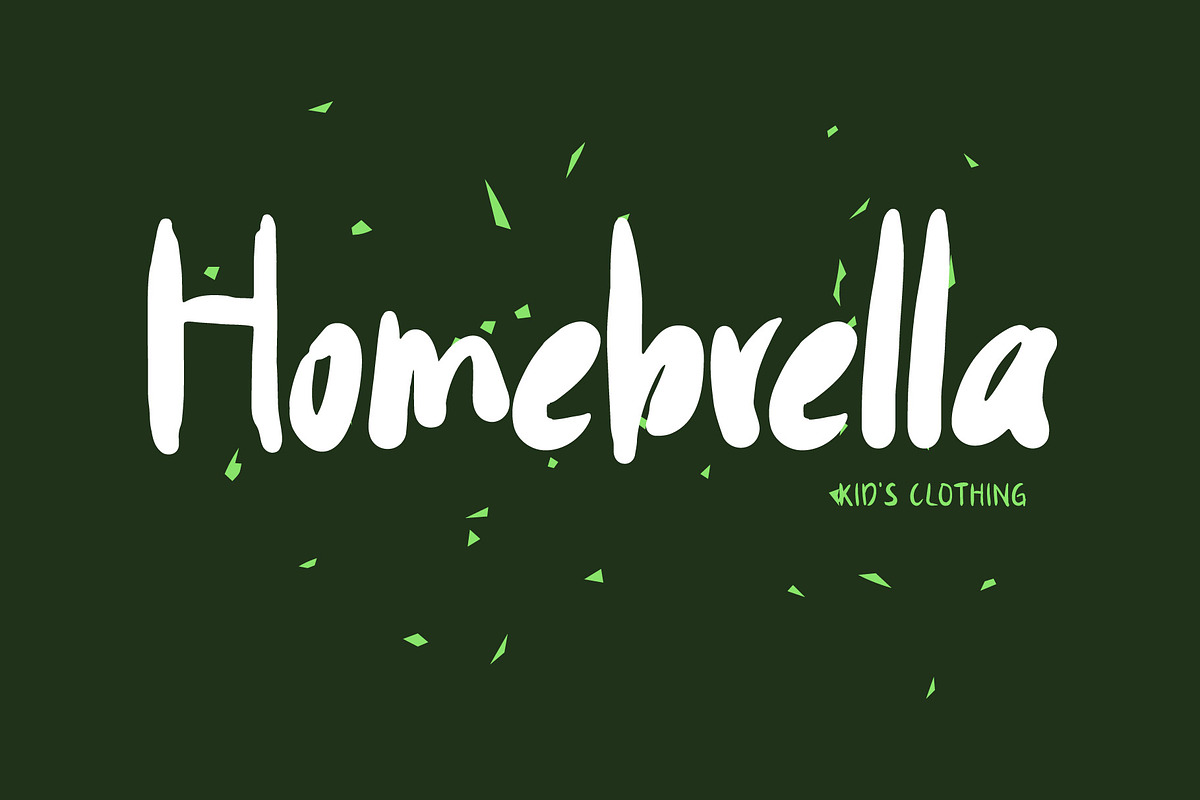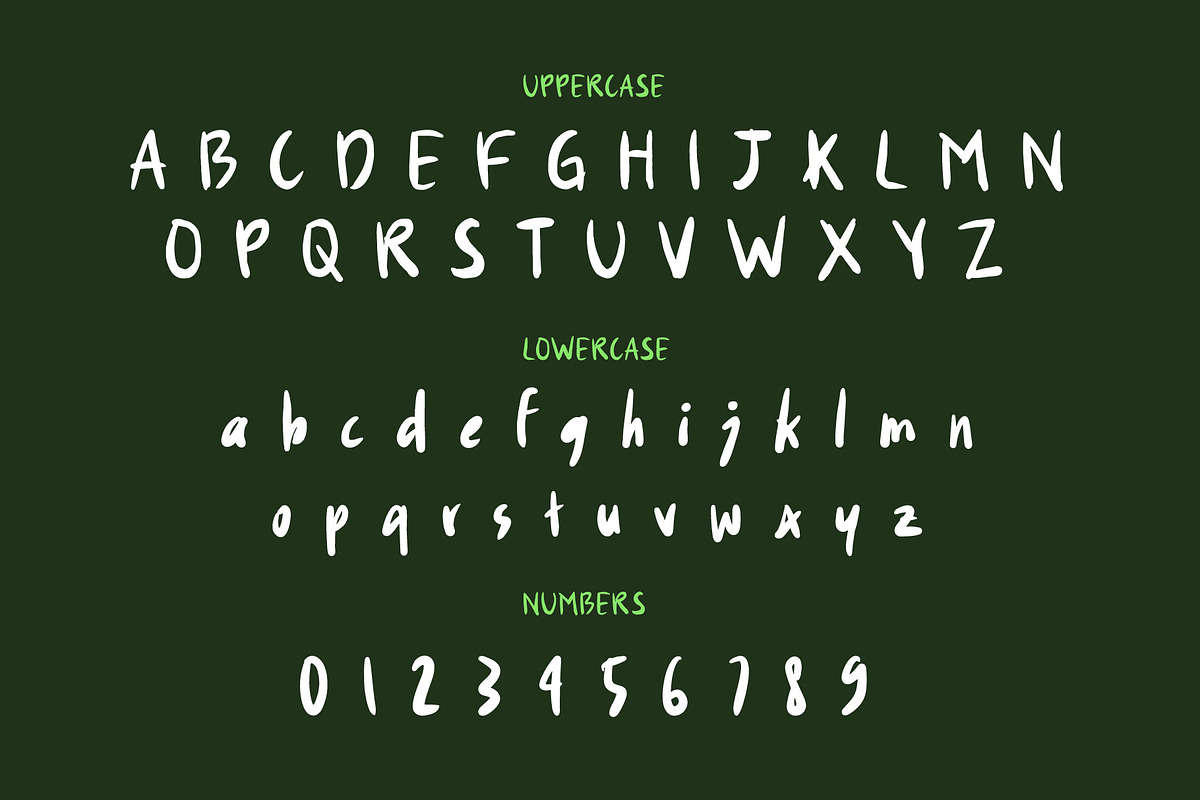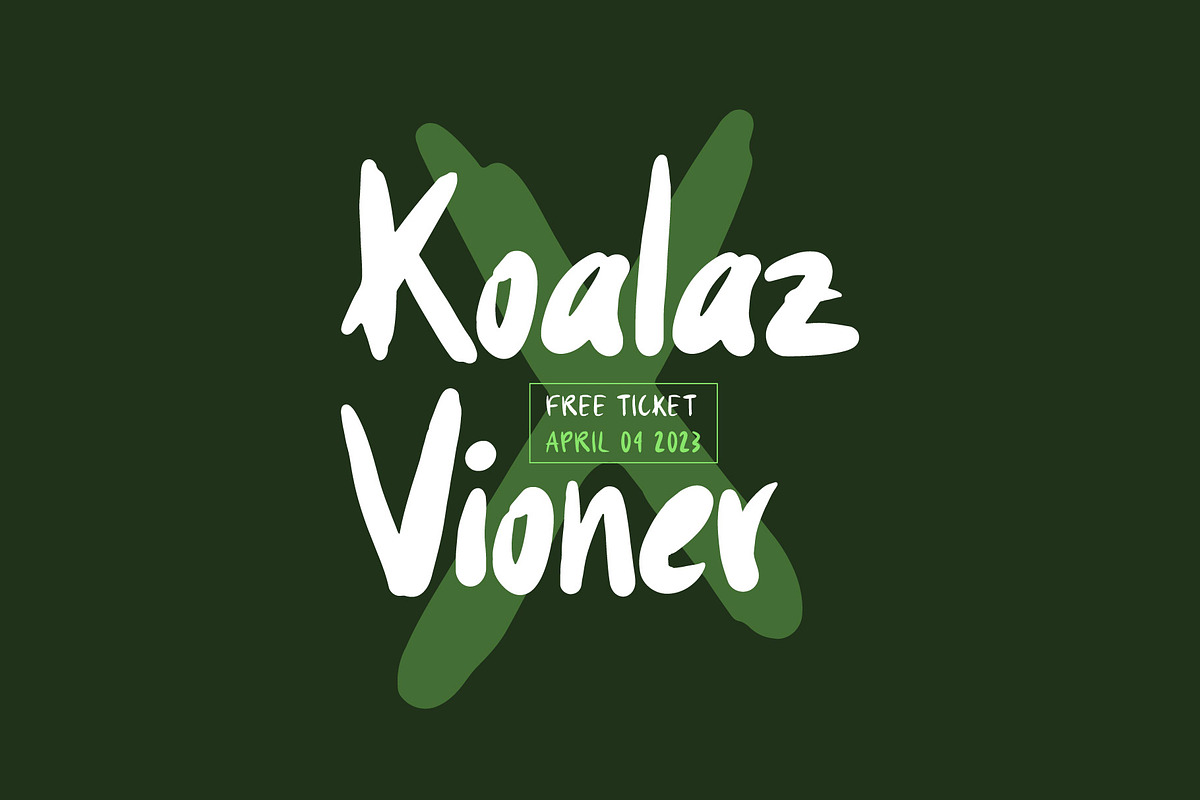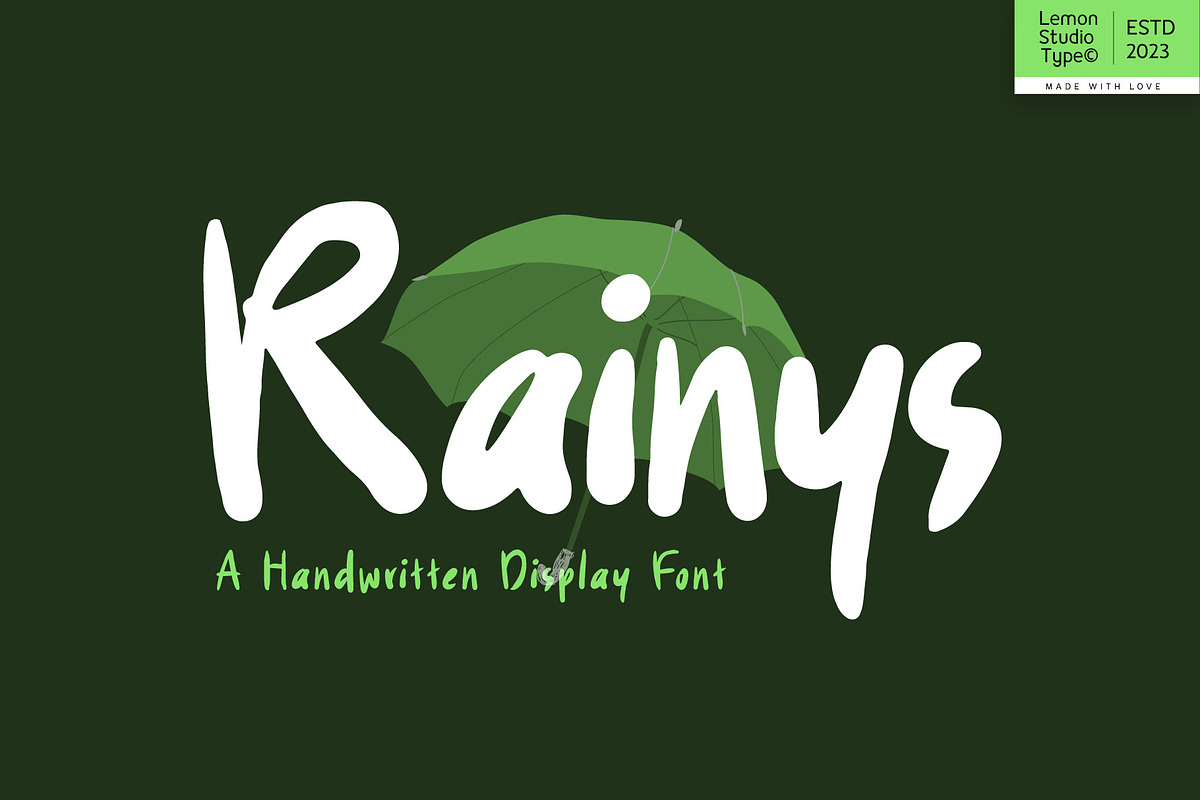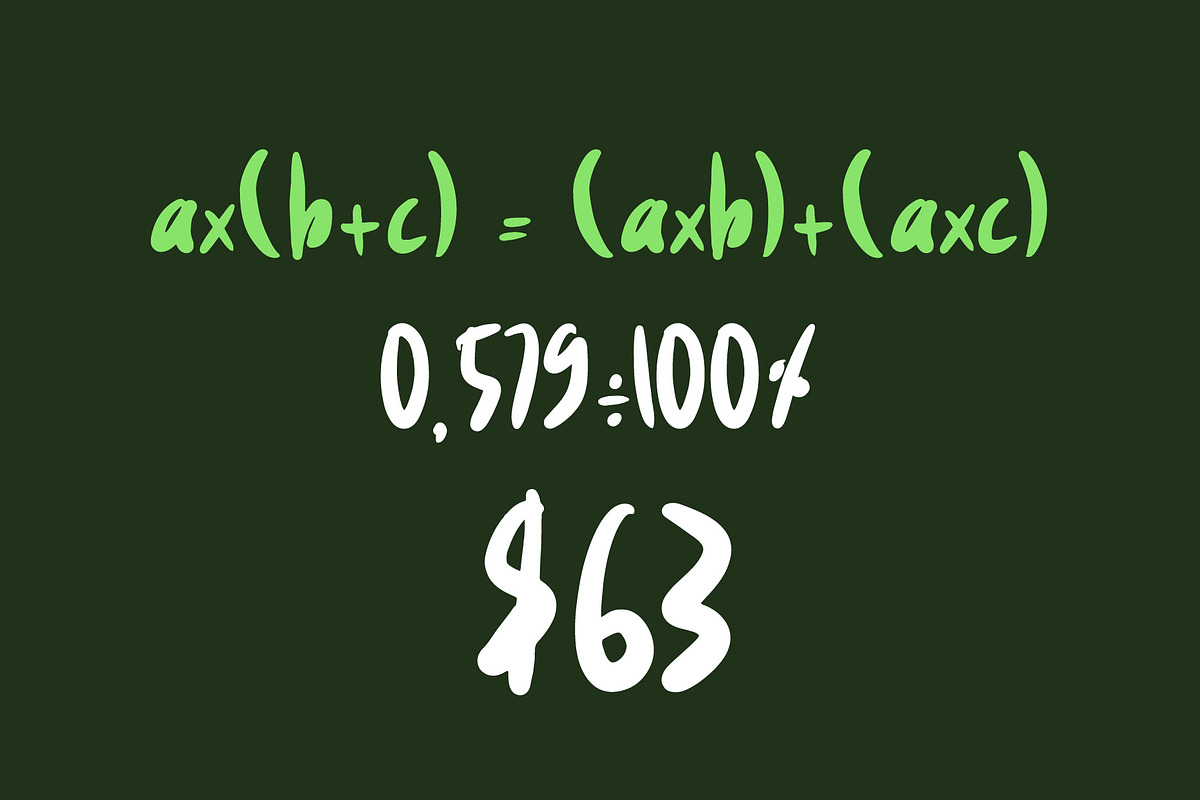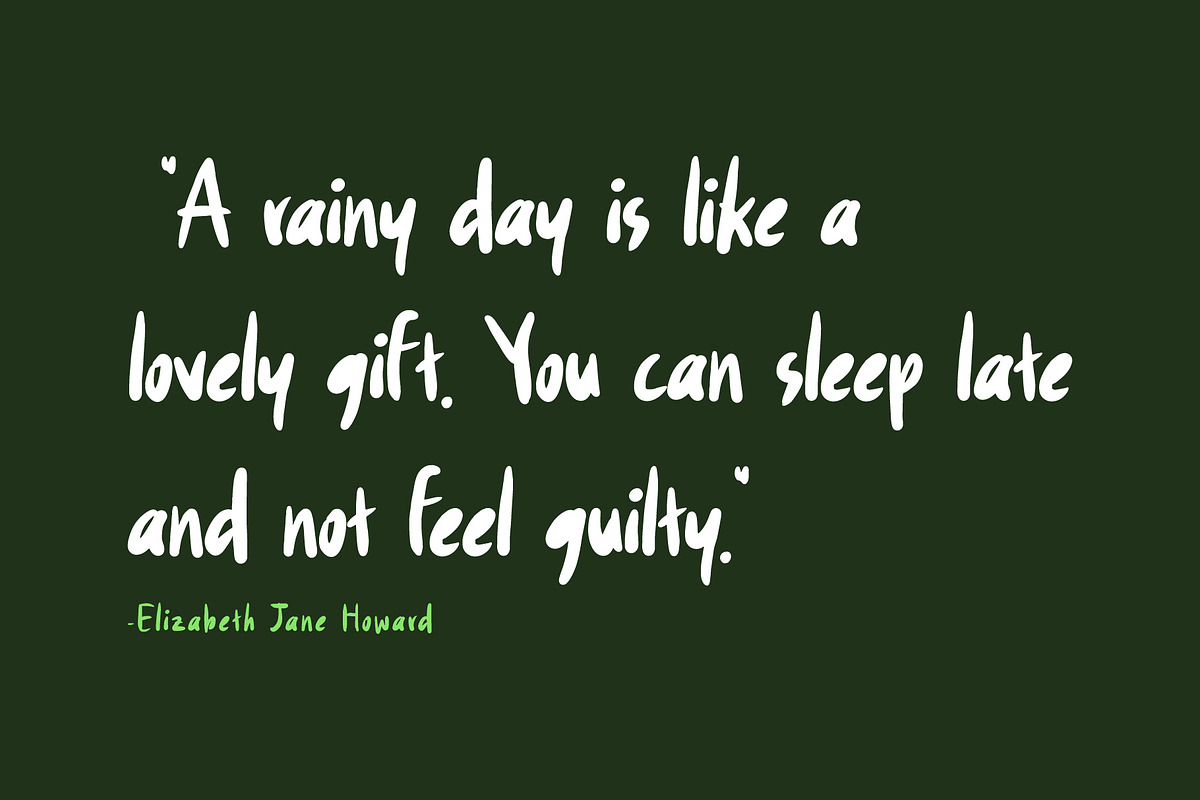
Rainys -Cute Handwritten
Rainys is a modern and homy handwritten brush font. It has been inspired from bubble shapes. It's perfect for various design needs related to children, like kids wear label, greetings card, book cover, school needs, and many more. It giving a calm impression.